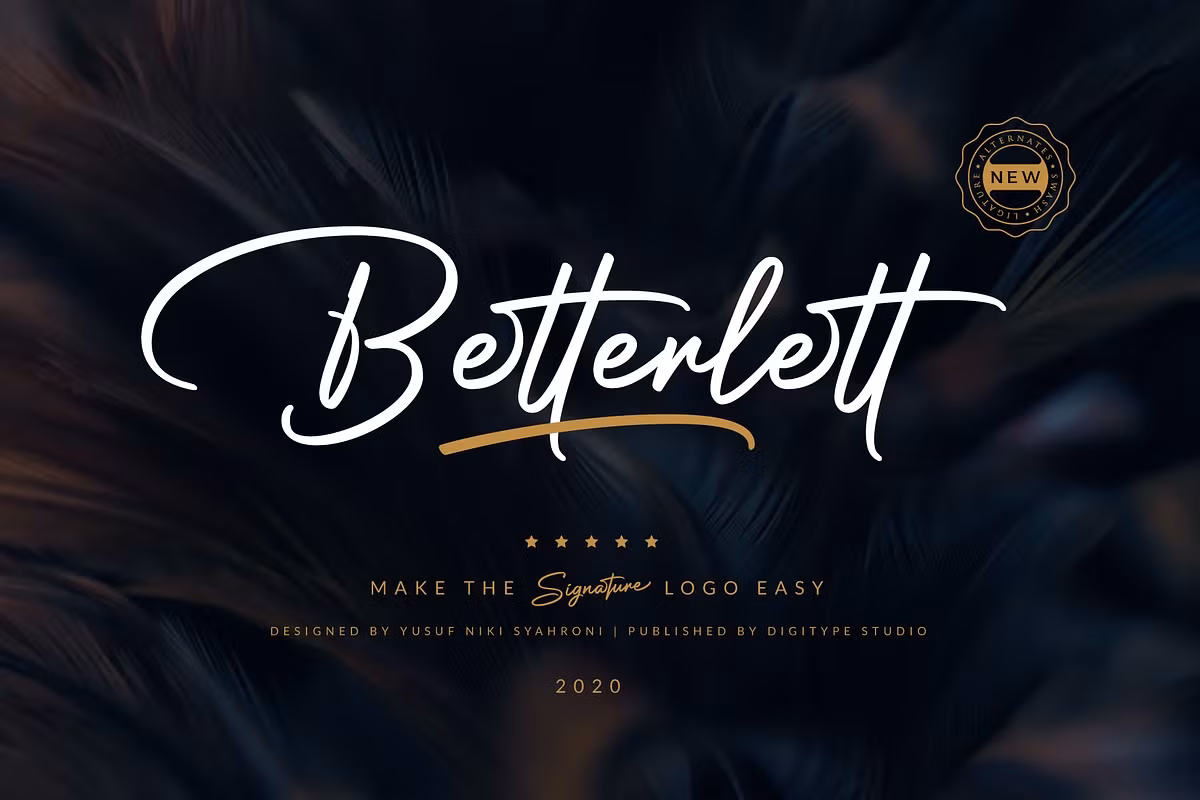
Betterlett Font Free Download is a clean and stylish handwritten script typeface that blends modern calligraphy with a natural, flowing rhythm. With its elegant strokes and smooth curves, Betterlett is perfect for logos, wedding stationery, branding, Instagram quotes, packaging, and other designs that call for a personal, graceful touch.
Crafted for versatility, Betterlett Font Free Download includes ligatures and alternates to give your text a custom, hand-lettered look. Whether used for digital or print projects, this font adds warmth and sophistication to any creative layout.